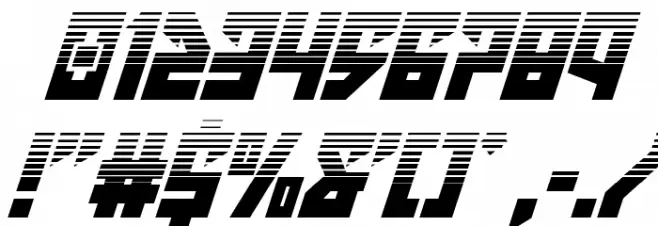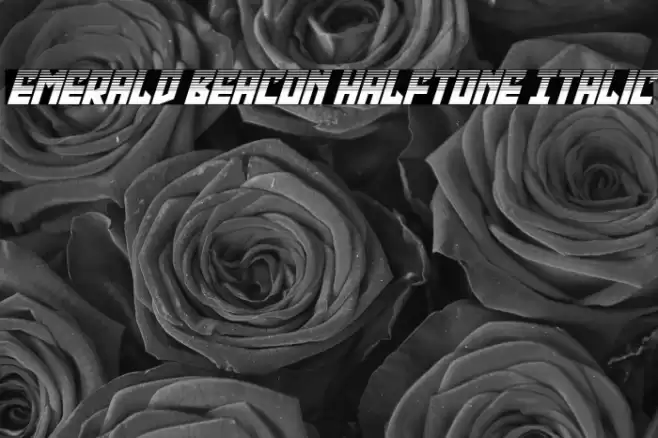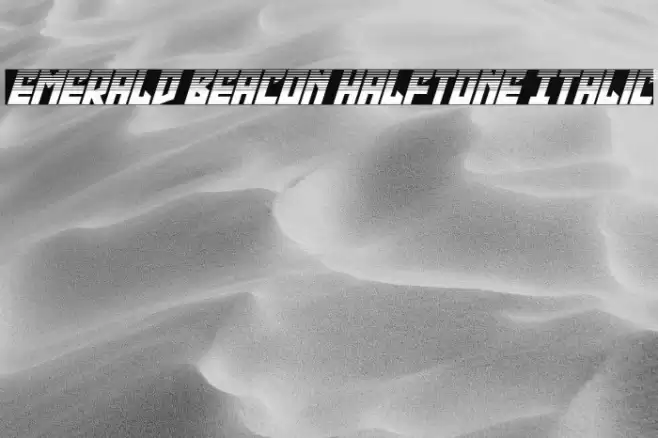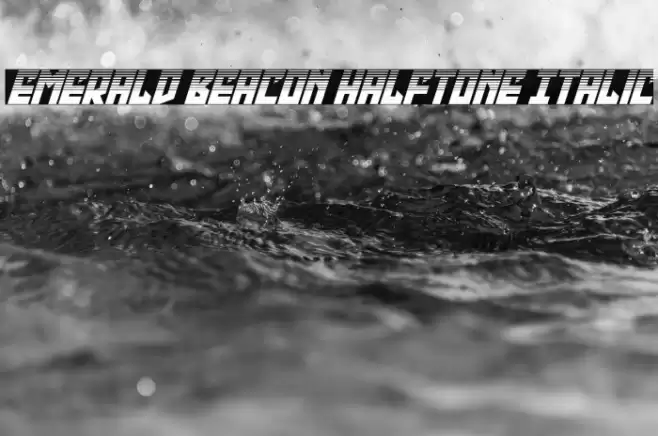
Emerald Beacon Halftone Italic Font
Emerald Beacon Halftone Italic Description
This font features a bold and dynamic design with a distinct halftone effect, creating a sense of motion and energy. The characters are italicized, adding a forward-leaning emphasis that enhances its modern and futuristic appeal. The uppercase and lowercase letters are consistent in style, with sharp angles and a geometric structure. The numbers and special characters maintain the same aesthetic, ensuring uniformity across all glyphs. The halftone pattern gives the font a unique texture, making it stand out in any design. Its bold presence and striking appearance make it ideal for attention-grabbing headlines and creative projects.
A bold, italicized font with a halftone effect, perfect for modern and dynamic designs from Uncategorized fonts.
- Proposed Projects: Ideal for futuristic branding, sports team logos, event posters, and video game titles.